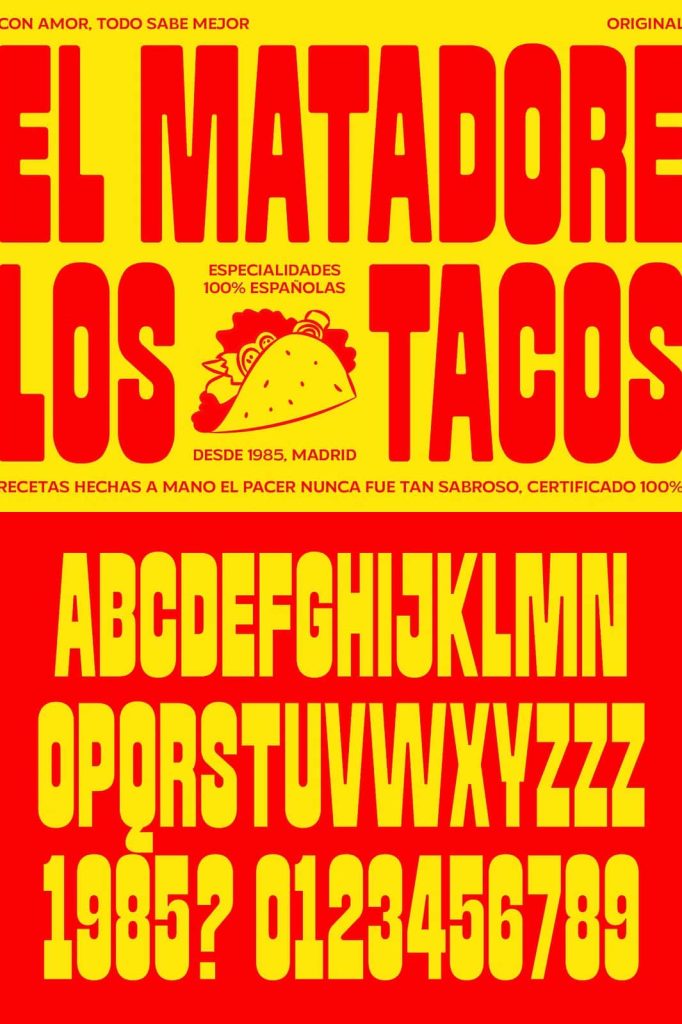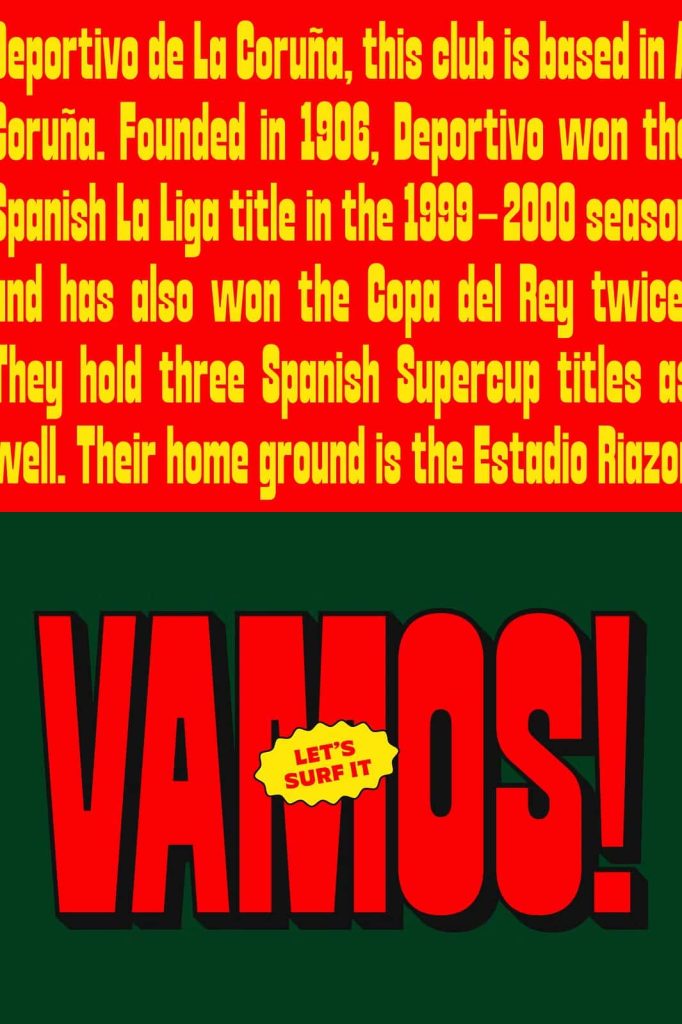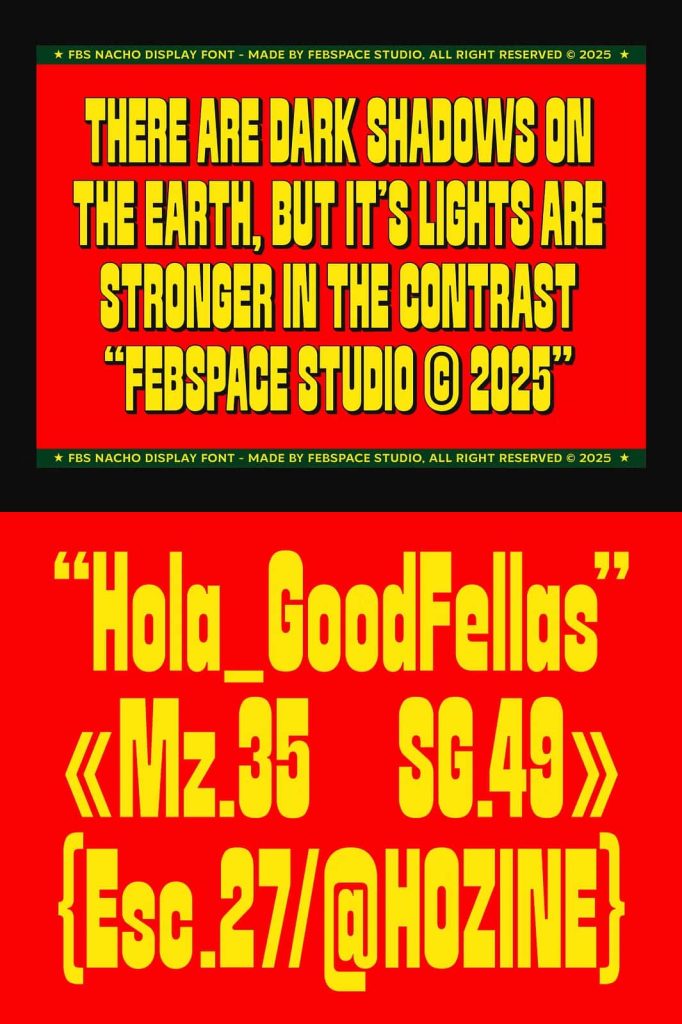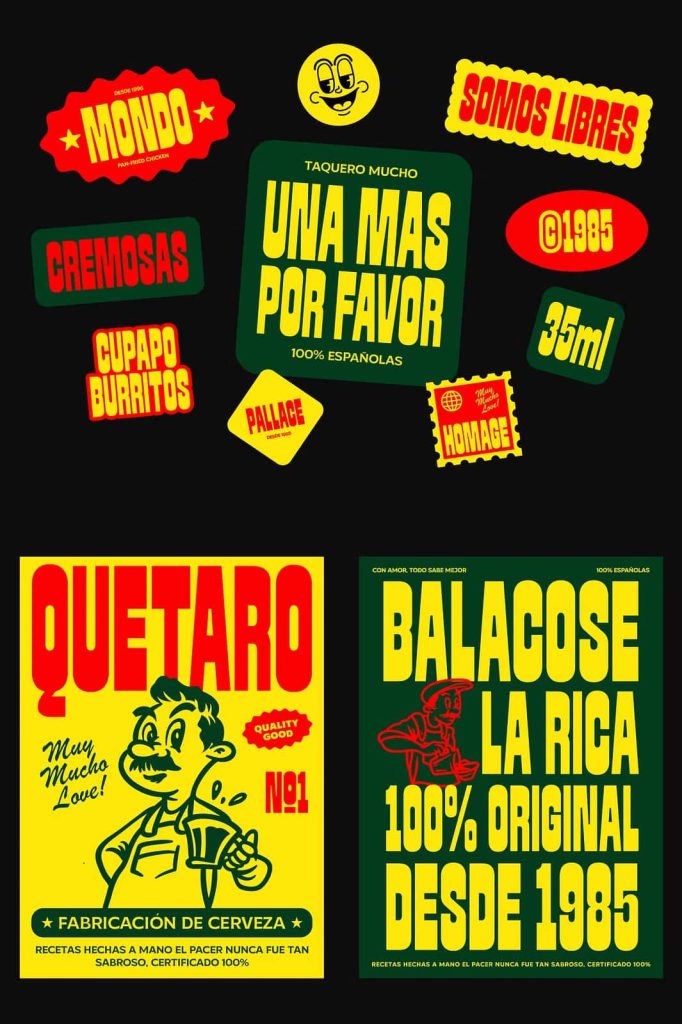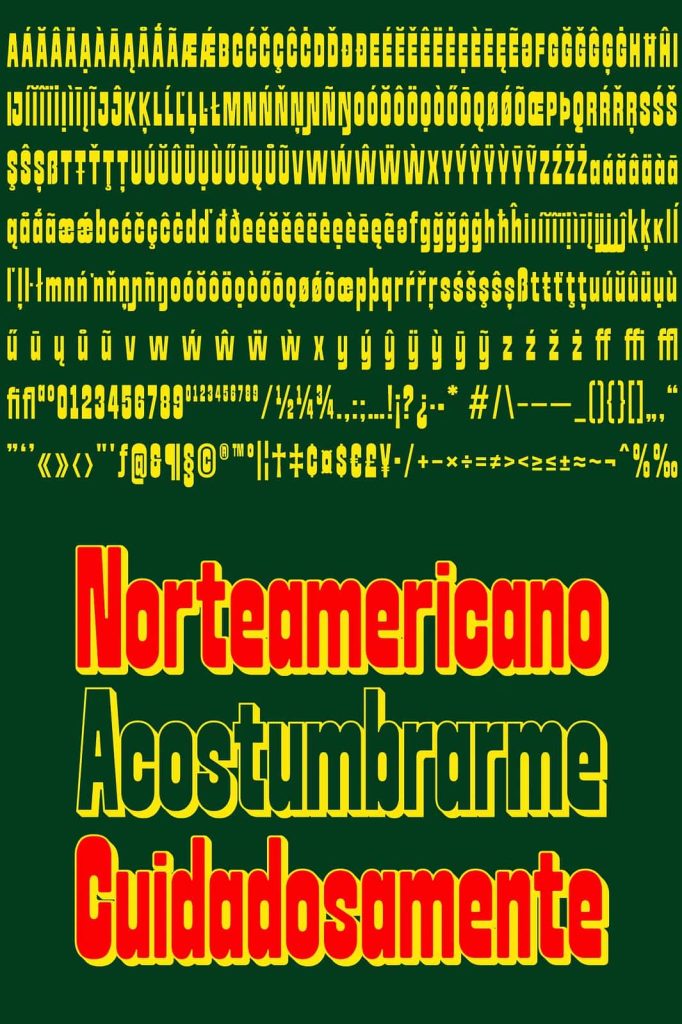
FBS Nacho Bold Display Typeface: Chunky Style with Playful Impact
FBS Nacho is a bold and expressive display typeface designed to grab attention and deliver strong visual impact. With its chunky letterforms and confident personality, this font transforms ordinary text into standout design elements. It blends clean structure with playful curves, creating a unique balance between minimalism and character.
This typeface is built for designers who want their work to stand out instantly. Whether you are creating posters, merchandise, or branding materials, FBS Nacho gives your designs a bold voice that feels energetic, modern, and full of attitude.
The Inspiration Behind FBS Nacho
FBS Nacho draws inspiration from bold graphic design trends and playful typography. It reflects a desire to create something simple yet impactful, where every letter carries weight and presence. The design embraces a fun and approachable tone, making it suitable for projects that aim to feel lively and engaging.
The font also incorporates subtle influences from retro and contemporary styles. Its chunky shapes and smooth curves create a visual language that feels familiar yet fresh. This combination allows FBS Nacho to adapt to different creative directions while maintaining a strong identity.
Key Features of FBS Nacho
Chunky and Bold Letterforms
FBS Nacho uses thick, heavy strokes that create a powerful visual presence. These bold shapes ensure that your text stands out in any layout, making it ideal for headlines and focal points.
Four Distinct Styles
The typeface includes four unique styles: Regular, Soft Round, Regular Shadow, and Soft Shadow. Each style offers a different visual effect, allowing designers to experiment and create dynamic compositions.
Playful Curves and Clean Cuts
The font combines sharp edges with rounded forms, creating a balance between structure and softness. This contrast adds personality and makes the typeface feel both modern and approachable.
Built-In Shadow Effects
The shadow styles add depth and dimension to the lettering. These effects enhance the overall impact of the design without requiring additional graphic elements.
Best Use Cases for FBS Nacho
FBS Nacho excels in projects that require bold visuals and a strong sense of identity. Its expressive design makes it particularly effective for:
- Posters and promotional graphics
- Merchandise such as t-shirts, stickers, and packaging
- Logo design with a playful and modern tone
- Social media content that needs to stand out quickly
Designers often use FBS Nacho in large sizes to fully showcase its chunky structure and stylistic details. Combining different styles within the same project can create depth and visual hierarchy.
Why Choose FBS Nacho?
FBS Nacho stands out because it delivers both impact and flexibility. It allows designers to create bold compositions without relying on complex design elements. The variety of styles provides creative freedom, while the consistent structure ensures a cohesive look.
This typeface also helps establish a strong emotional connection with the audience. Its playful and confident tone communicates energy and creativity, making it ideal for brands and projects that want to feel vibrant and memorable.
FBS Nacho is more than just a bold display font—it is a dynamic design tool that brings personality and impact into every project. With its chunky letterforms, versatile styles, and playful character, it offers endless possibilities for creative expression. For designers who want to create eye-catching and engaging visuals, FBS Nacho provides a powerful and exciting solution.